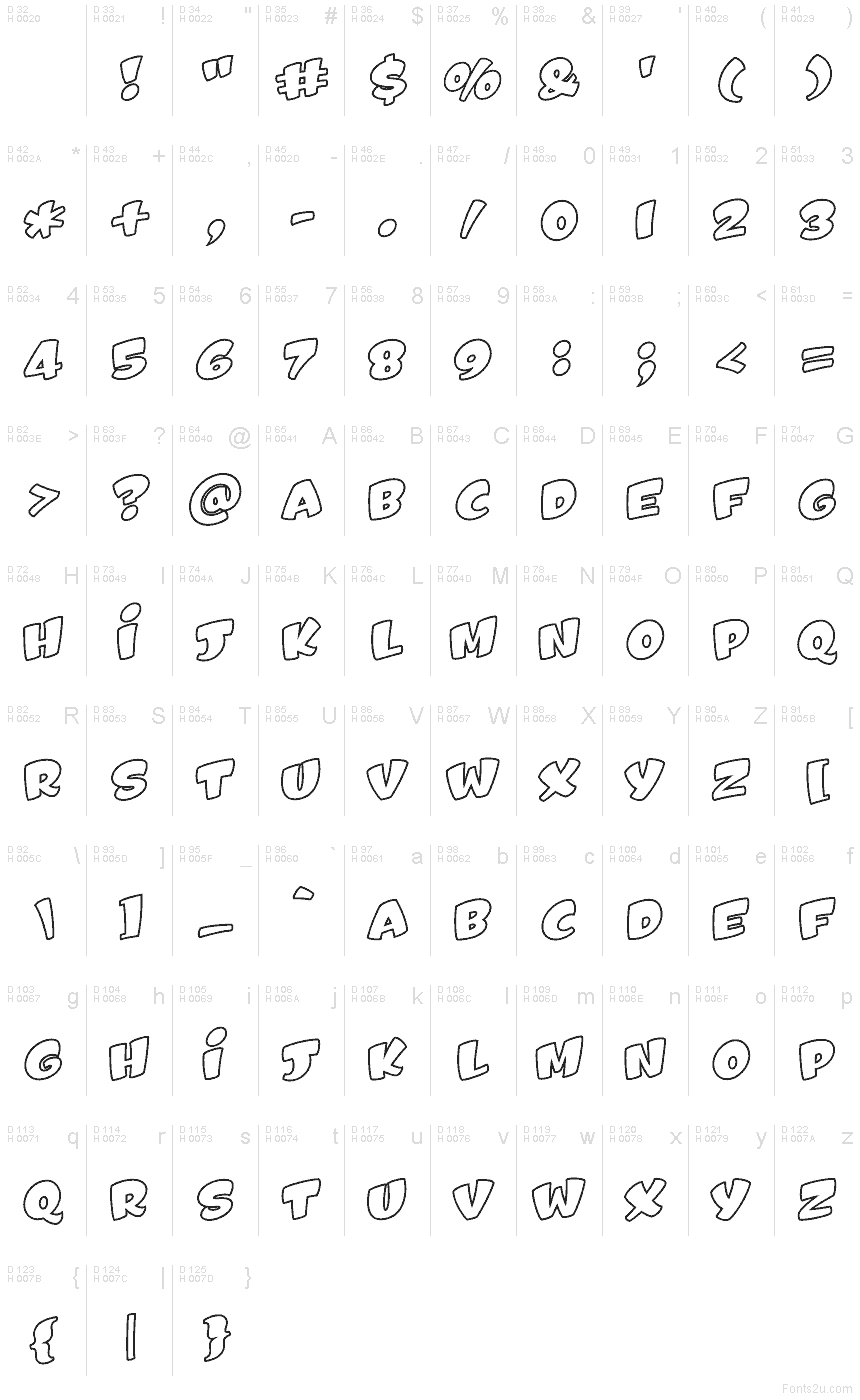
Oups-Outline
Oups-Outline font by Youssef Habchi is a free bold outlined comic display font. Built around buoyant, hand-drawn strokes and a chunky black contour, it has that squishy, air‑puffed feel—like letters inflated just past the edge of neatness. The lively bounce and roomy counters add playful energy without losing clarity, and being part of the Oups family gives it a cohesive, curated vibe.
Using Oups-Outline, headlines pop on kids’ branding, toy packaging, comic panels, posters, stickers, and YouTube thumbnails. This free font shines at large sizes where its inky outline and soft curves can breathe, and it keeps copy friendly for event flyers and social posts. Pair it with a clean, unassuming sans for body text, or layer a solid fill beneath to amplify impact.